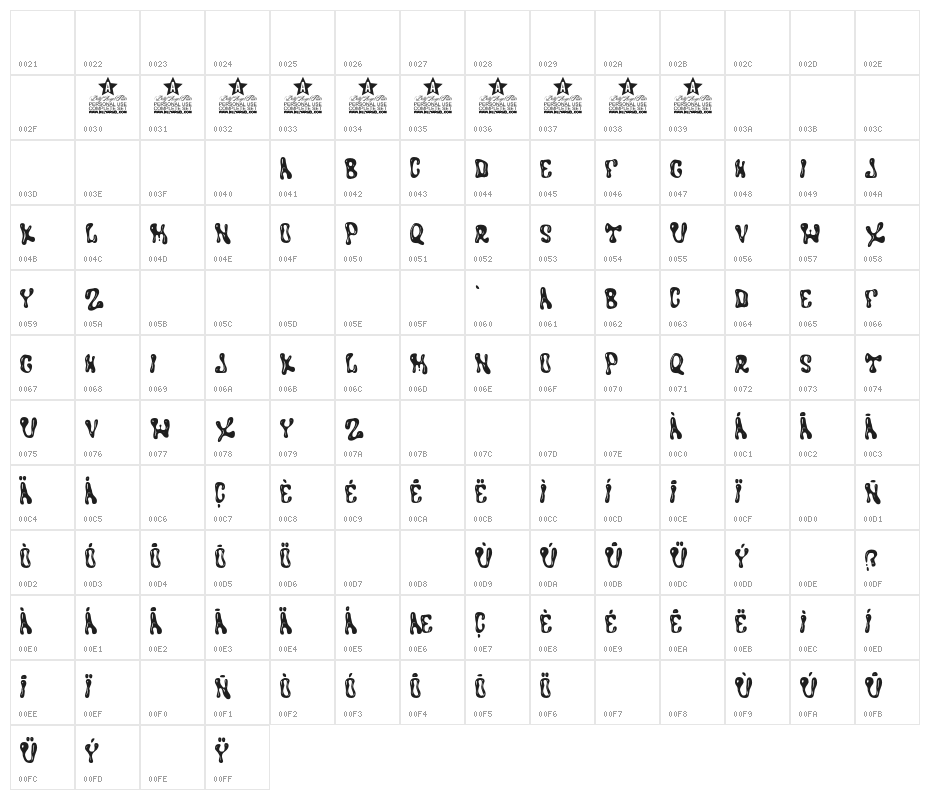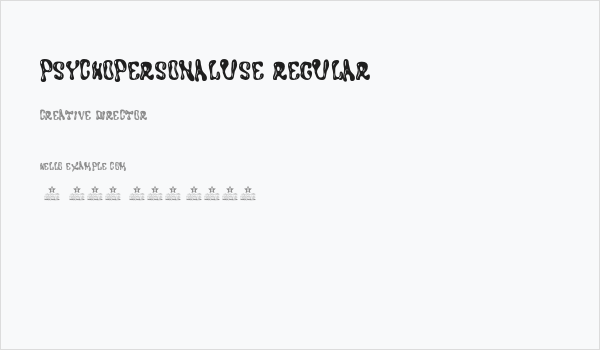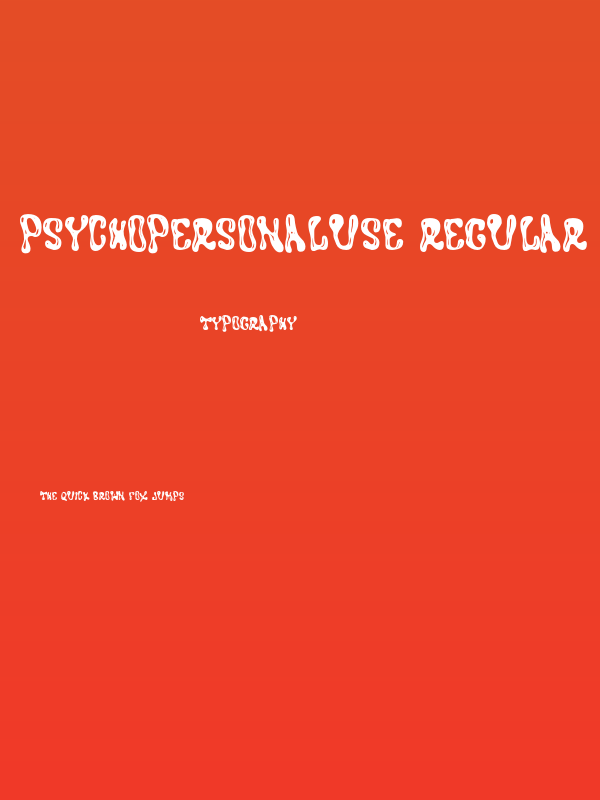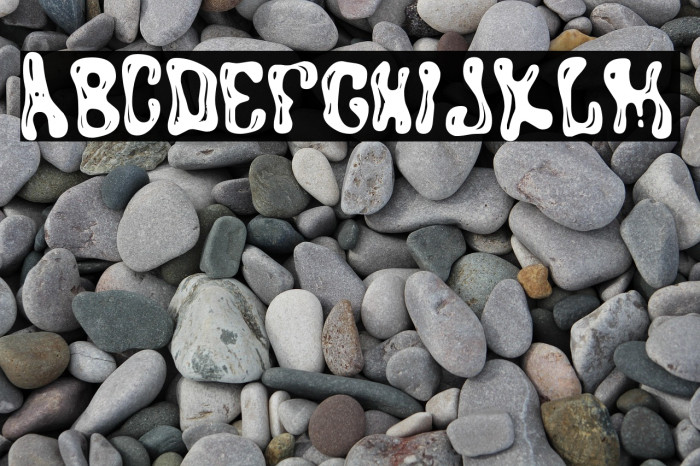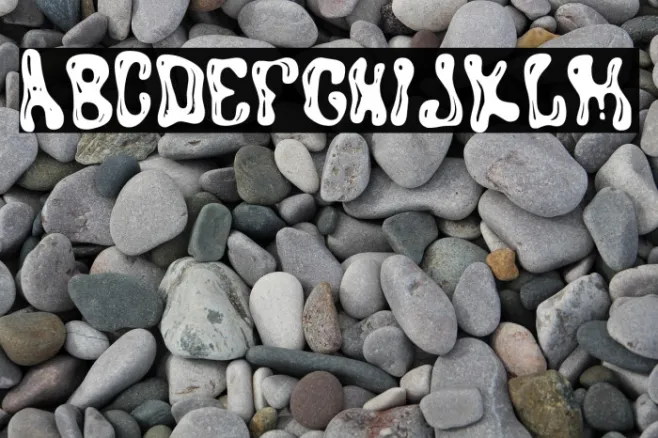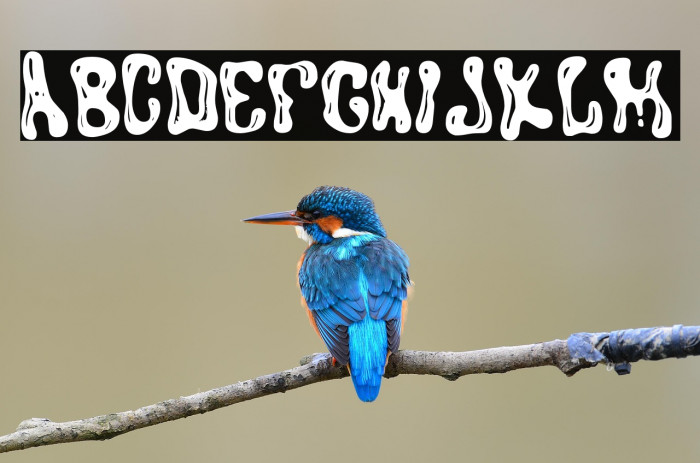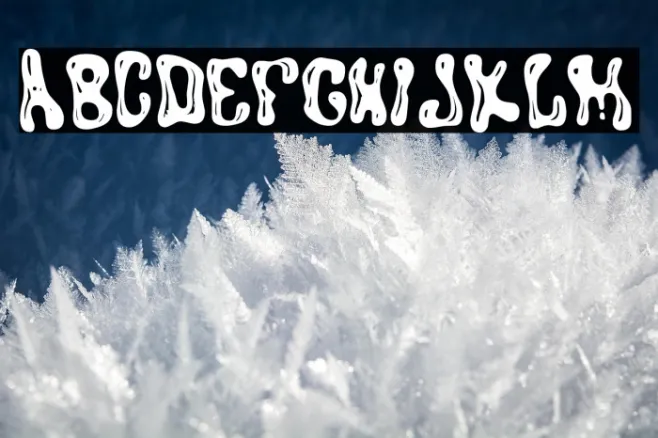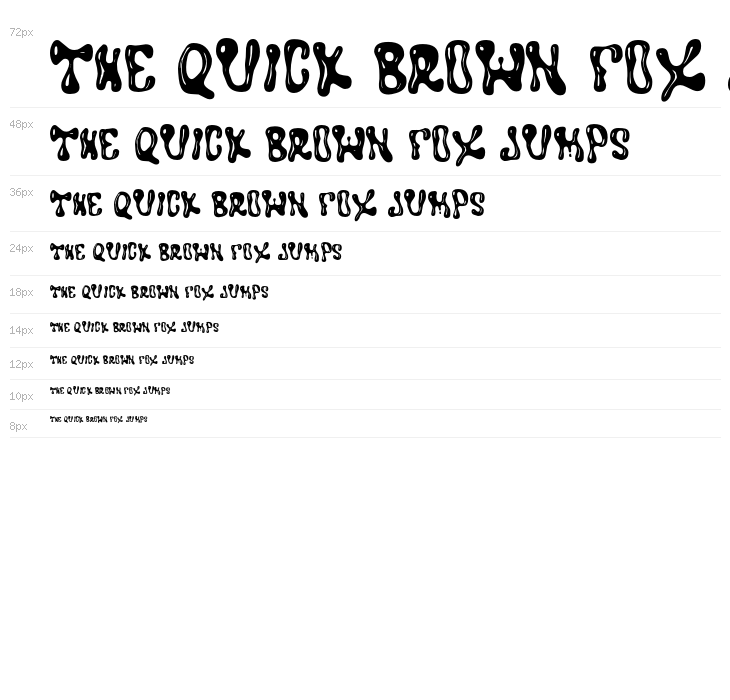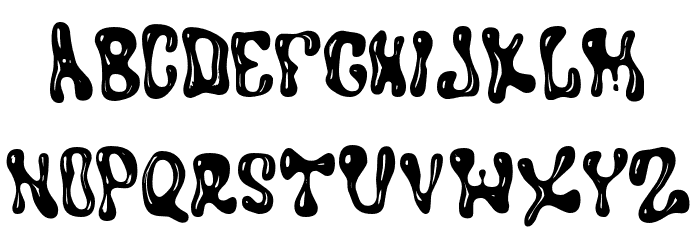
PSYCHOPERSONALUSE-Regular Font
PSYCHOPERSONALUSE-Regular Description
This font features a unique, fluid design that gives each character a melting or dripping appearance. The letters are bold and have a playful, almost psychedelic style, making them stand out with their unusual shapes and curves. The font is highly decorative, with each letter exhibiting a distinct, organic form that suggests movement and creativity. The overall look is both whimsical and bold, suitable for projects that require a standout, artistic touch.
| Proposed Projects | Ideal for creative projects such as posters, album covers, event flyers, and branding that seeks a unique and artistic flair. |